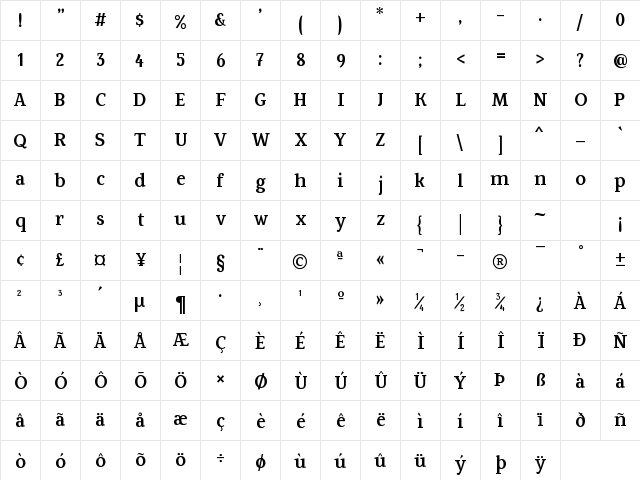
Fowviel Regular
Design Context for Fowviel Typeface
Fowviel offers clean, dependable letterforms without strong stylistic allegiance, making it a practical choice for designers who need flexibility.